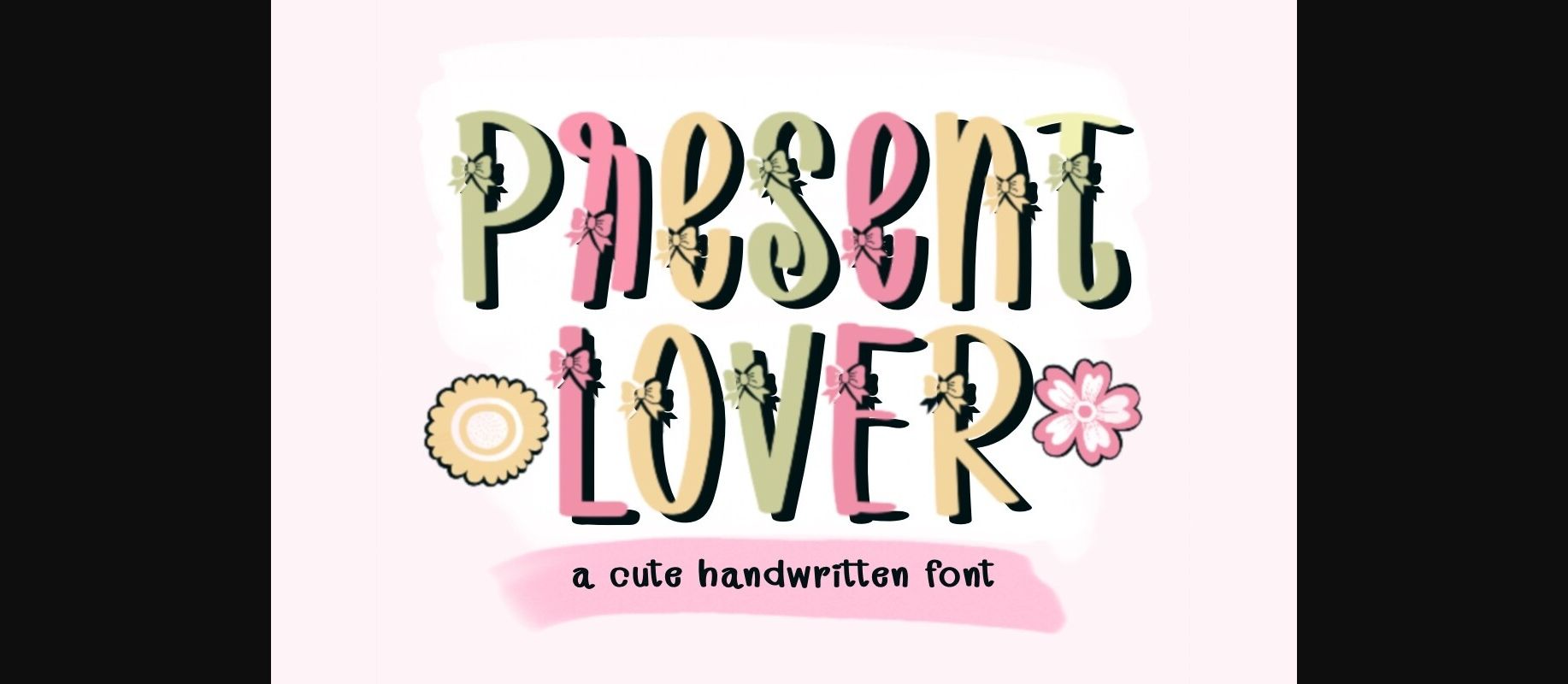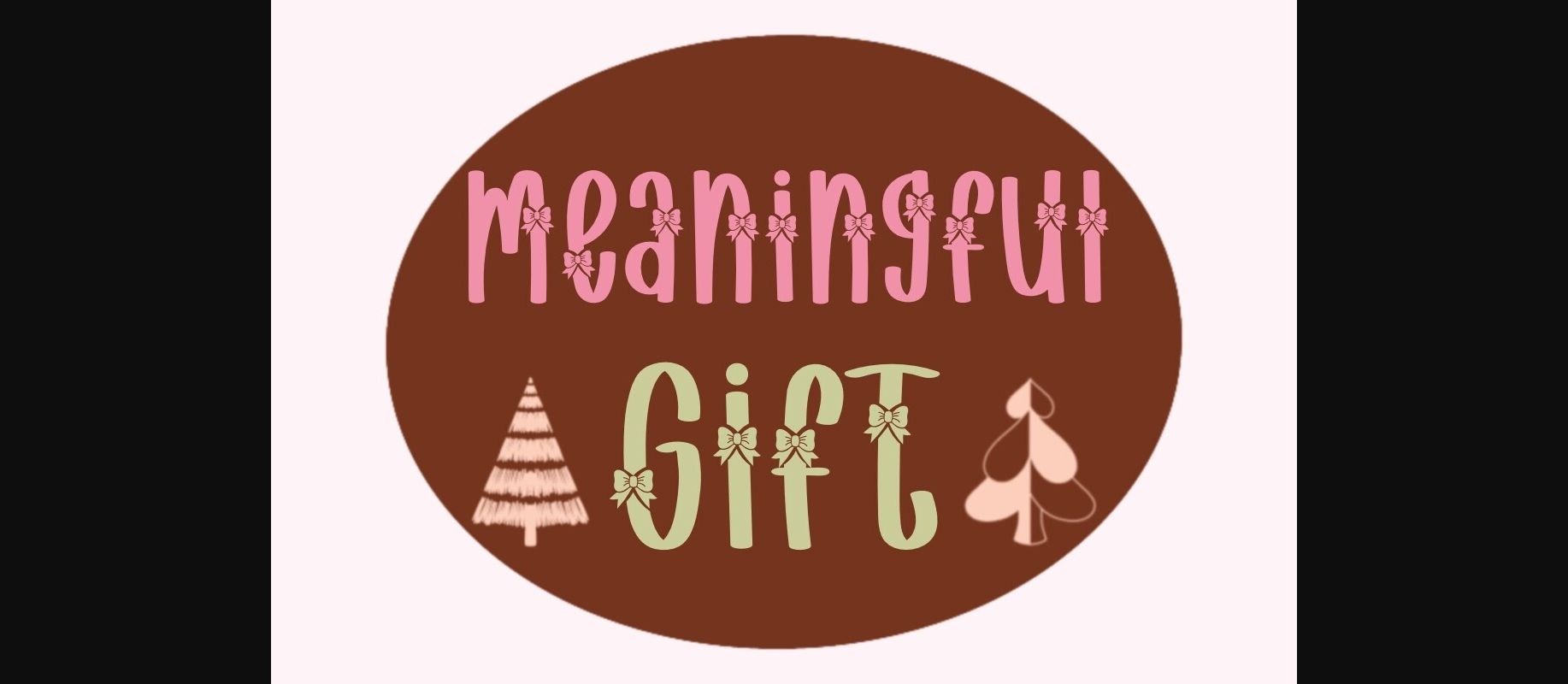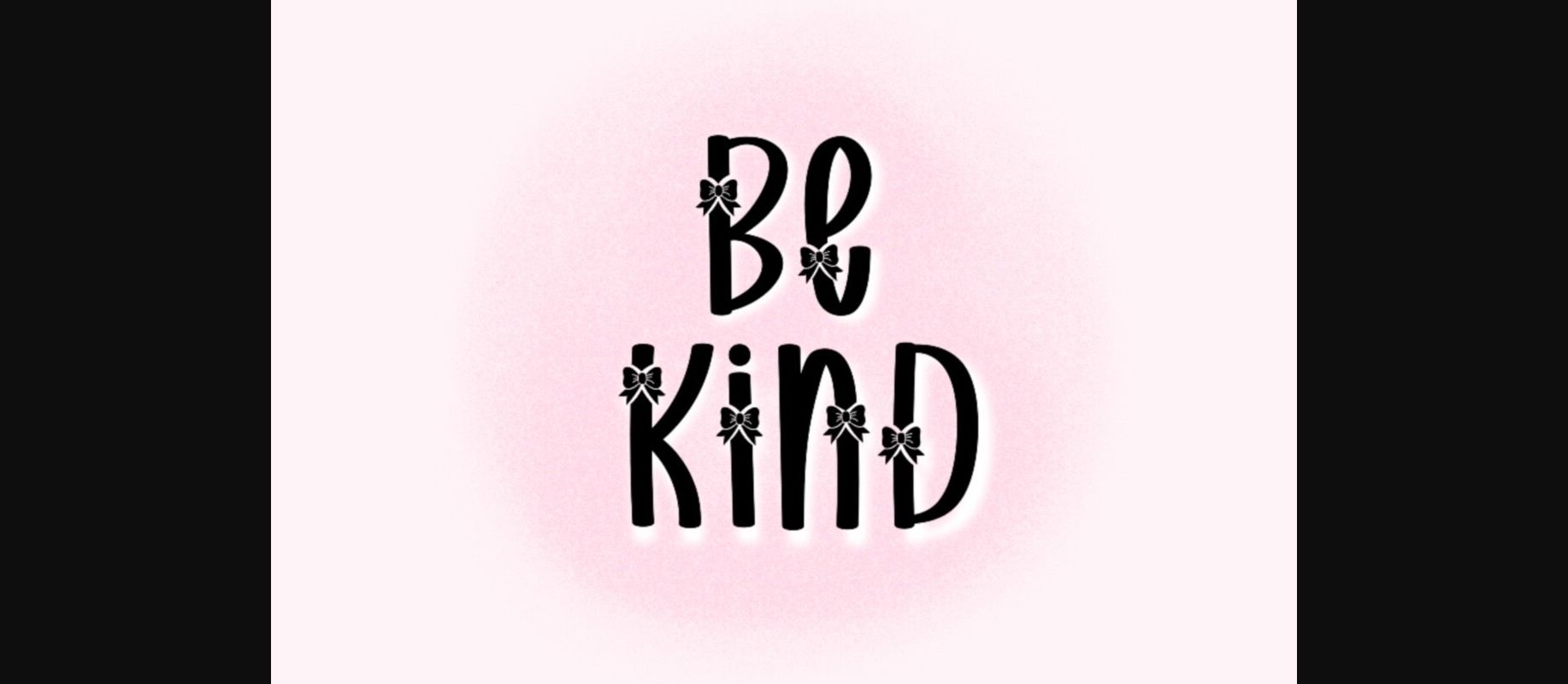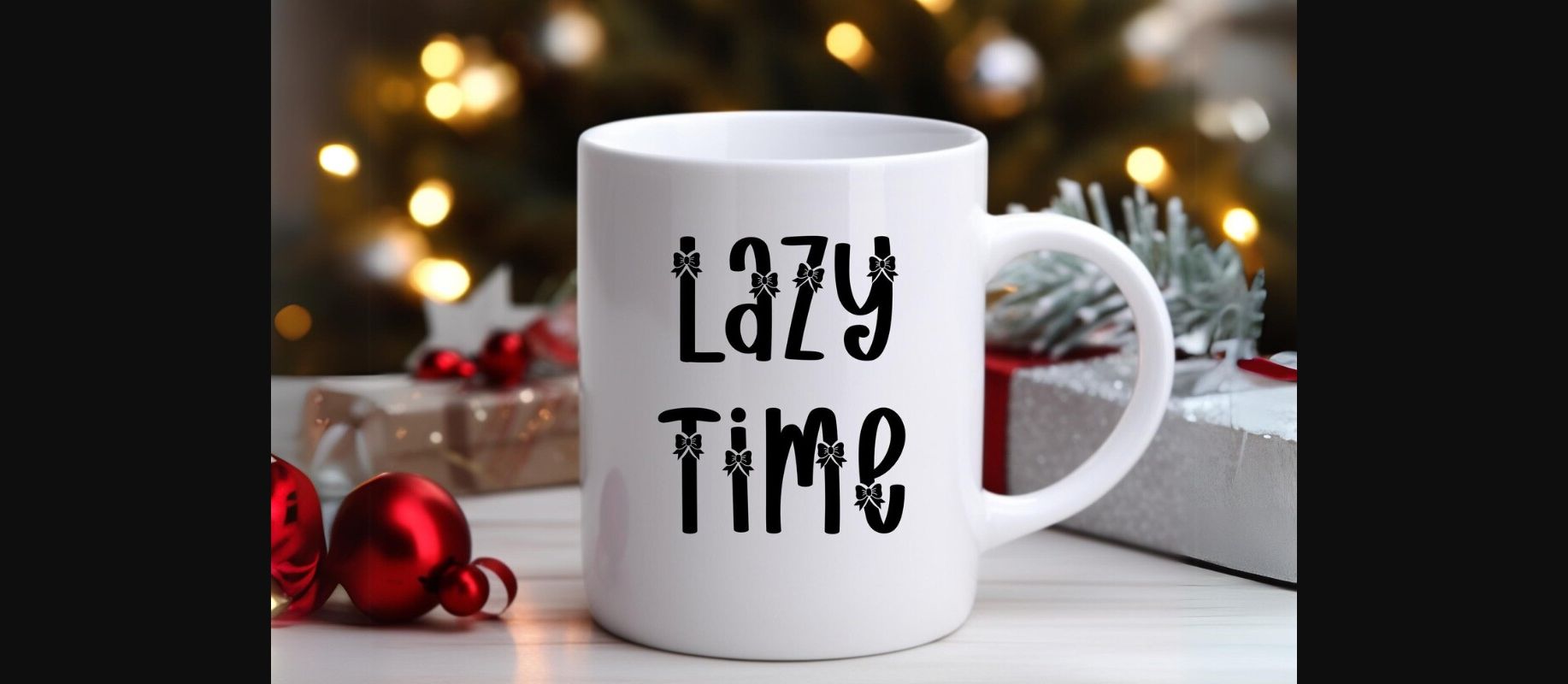
About Present Lover Font
Present Lover is a cute display font that uses skinny, tall handwriting font adorned with lovely bow designs that deliver casual charm and will help you create lovely, gorgeous project designs. It is perfect for creating a wide variety of designs, such as banners, social media posts, cards, content, mugs, t-shirt designs, stationery, bags, hats, pillows, stickers, and much more. Masterfully designed to become a true favorite, this font has the potential to bring each of your creative ideas to the highest level!